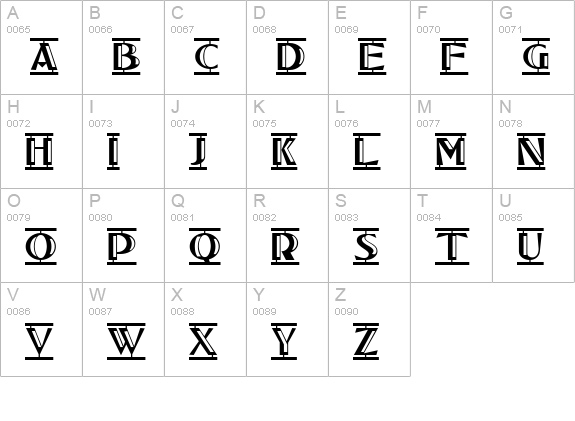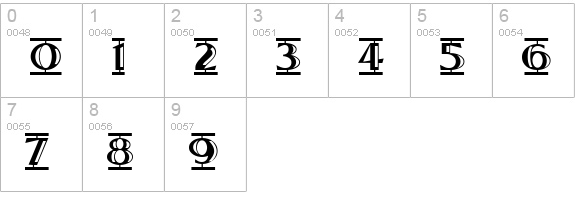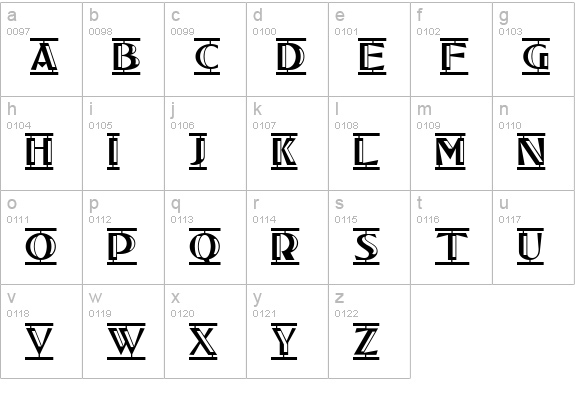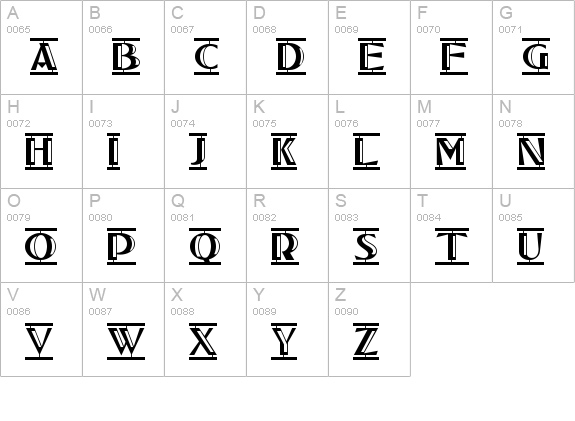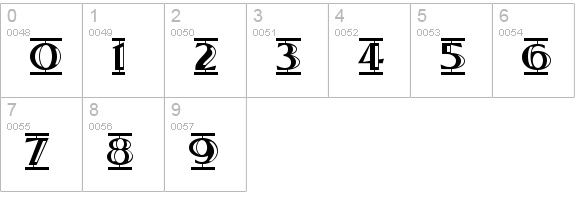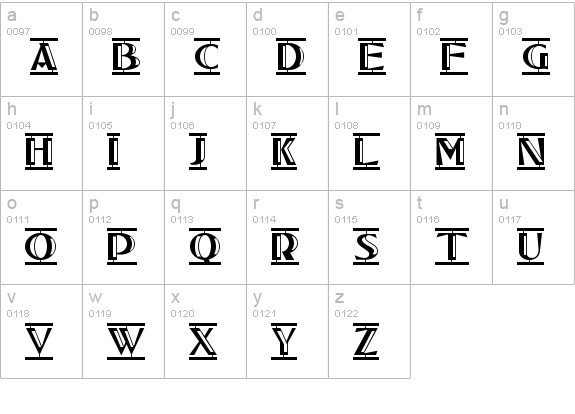
TucsonTwoStepNF Font Details
Introducing TucsonTwoStepNF, a versatile and captivating font that combines the elegance of traditional typography with a modern twist. This font is perfect for adding a touch of sophistication and creativity to your designs. TucsonTwoStepNF features a unique and stylish two-step design, with each letter gracefully intertwining to create a harmonious flow. Its clean lines and balanced proportions give it a timeless appeal, making it suitable for a wide range of projects. Whether you're designing a logo, creating eye-catching headlines, or crafting invitations, TucsonTwoStepNF will effortlessly elevate your work to new heights. Its versatility allows it to seamlessly adapt to various design styles, from vintage and retro to contemporary and minimalist. One of the best features of TucsonTwoStepNF is that it is free. That's right, you can download this stunning font for free at FontsMarket.com. This means that you can enjoy all the beauty and versatility of TucsonTwoStepNF without any cost, making it accessible to designers of all levels. Don't miss out on the opportunity to enhance your projects with this outstanding font. Download TucsonTwoStepNF today and let your creativity flourish.